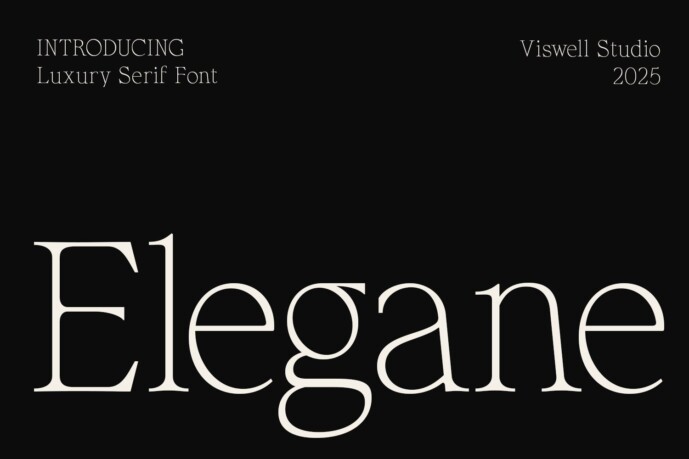
Elegane Font
Designer: viswellstd
Elegane Font – a sophisticated and timeless luxury serif font, crafted to bring elegance and high-end aesthetics to your designs. With its delicate yet commanding letterforms, Elegane exudes a perfect balance of modernity and classic charm. This typeface is designed for refined branding, editorial designs, invitations, and any project that requires a touch of luxury.